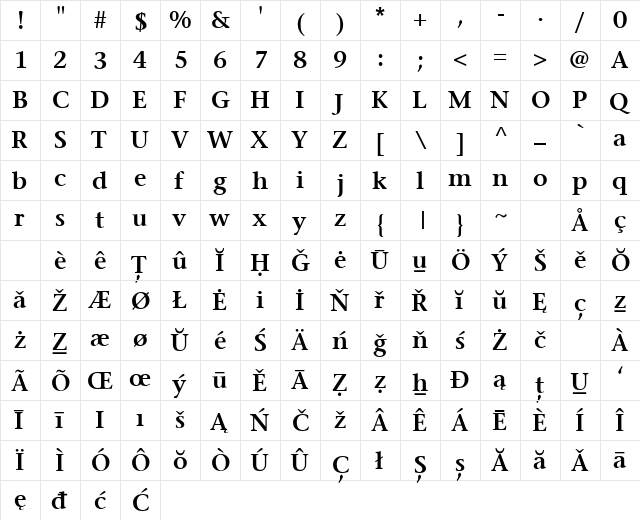
StoneSerif SBIN SmBd v.1 Semibold
Design Context for StoneSerif SBIN SmBd v.1 Typeface
StoneSerif SBIN SmBd v.1 brings classic typographic sensibility to the table — its serifs and measured letterforms reflect centuries of print heritage. The heavy weight commands attention and anchors typographic hierarchies.
Pro Tip: Set StoneSerif SBIN SmBd v.1 with slightly loose tracking in headlines to let each letterform's detail read clearly at display sizes.